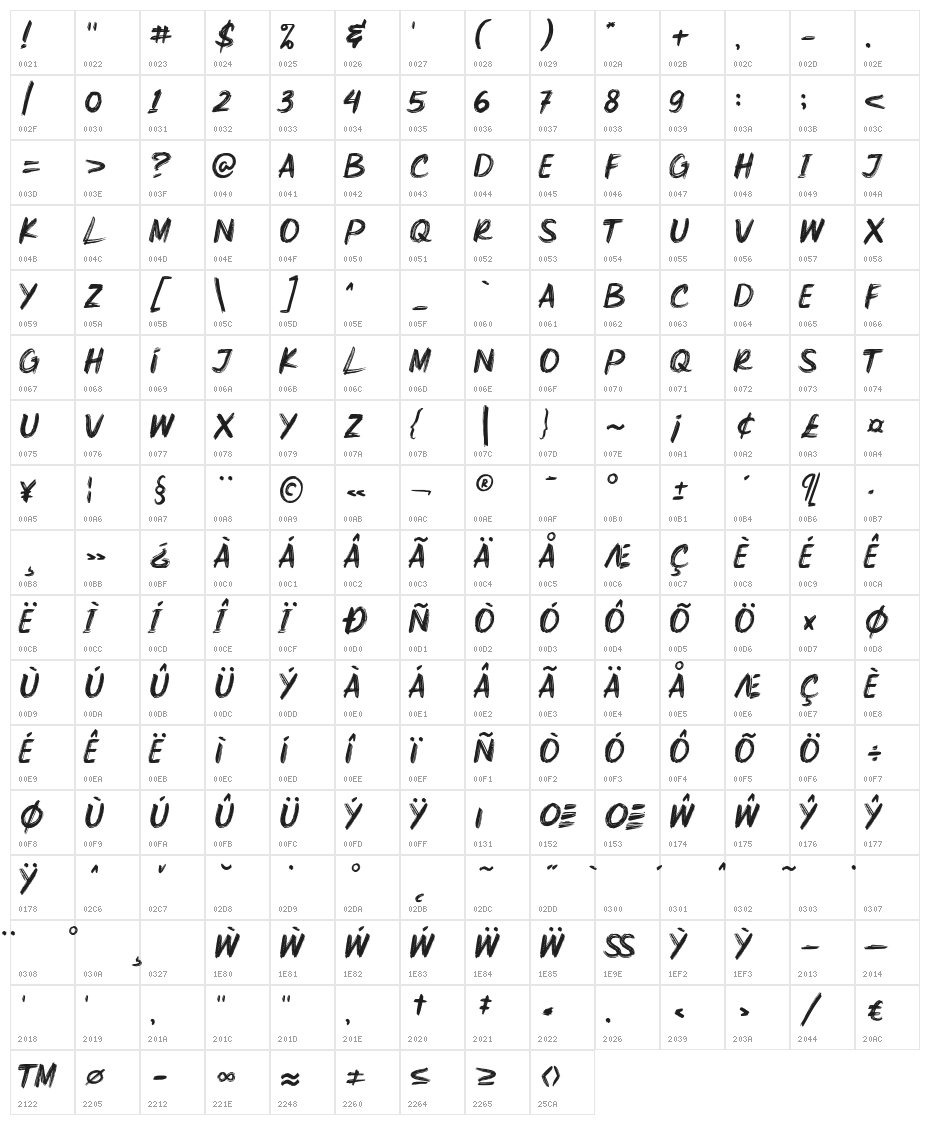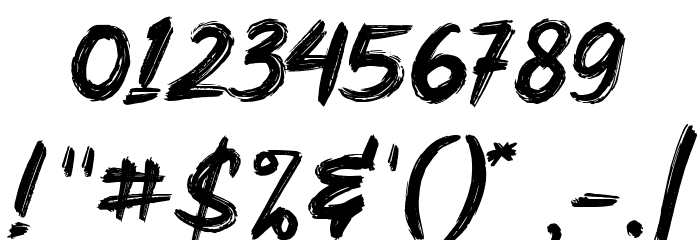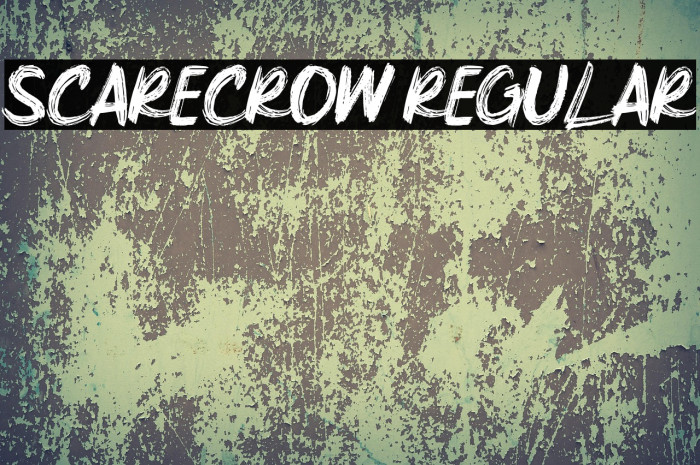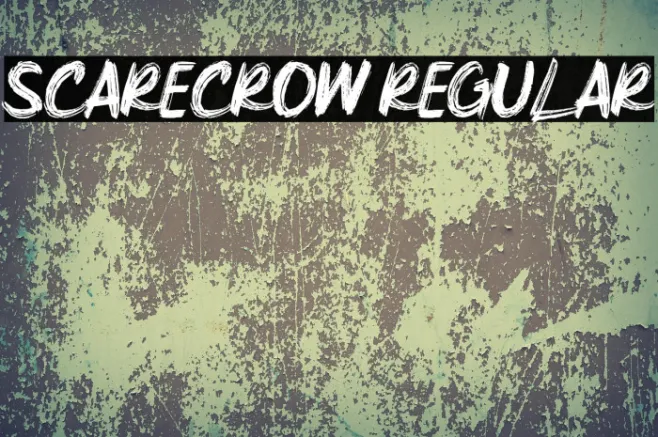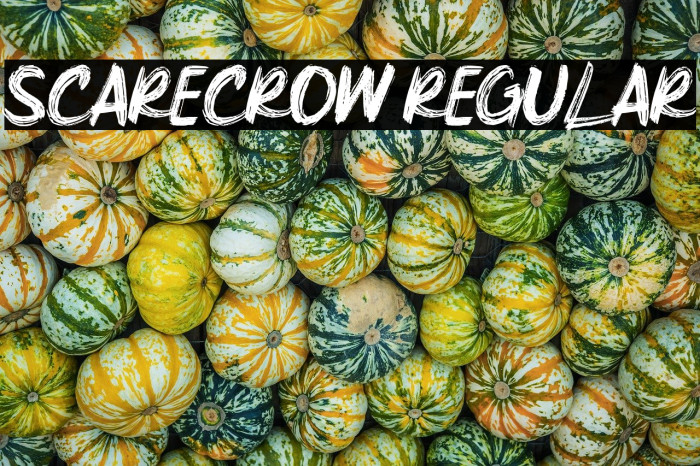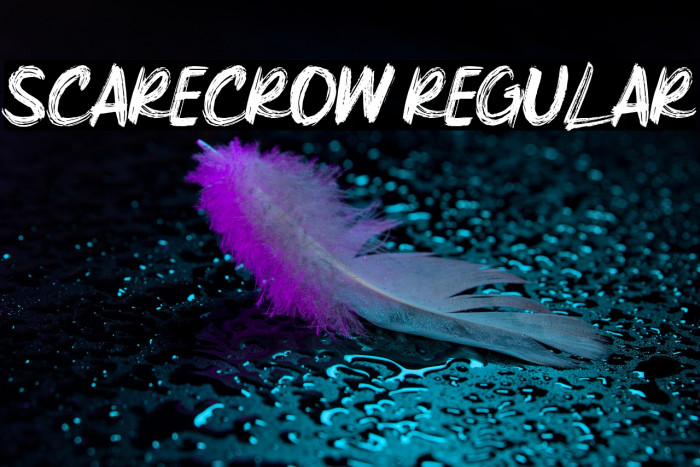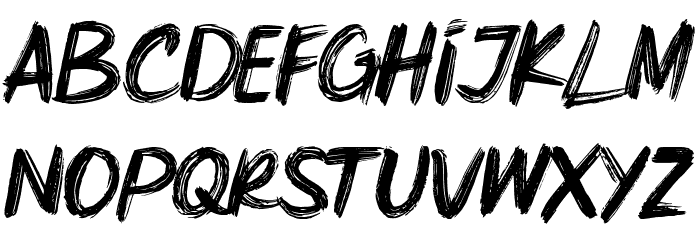
Scarecrow Regular Font
Scarecrow Regular Description
This font features a bold, brush-like style with a hand-drawn appearance, giving it a dynamic and energetic feel. The strokes are irregular and textured, creating a sense of movement and spontaneity. Each character is unique, with varying thicknesses and angles, adding to its artistic and expressive nature. The font maintains legibility while offering a distinctive and eye-catching look, suitable for creative and informal designs.